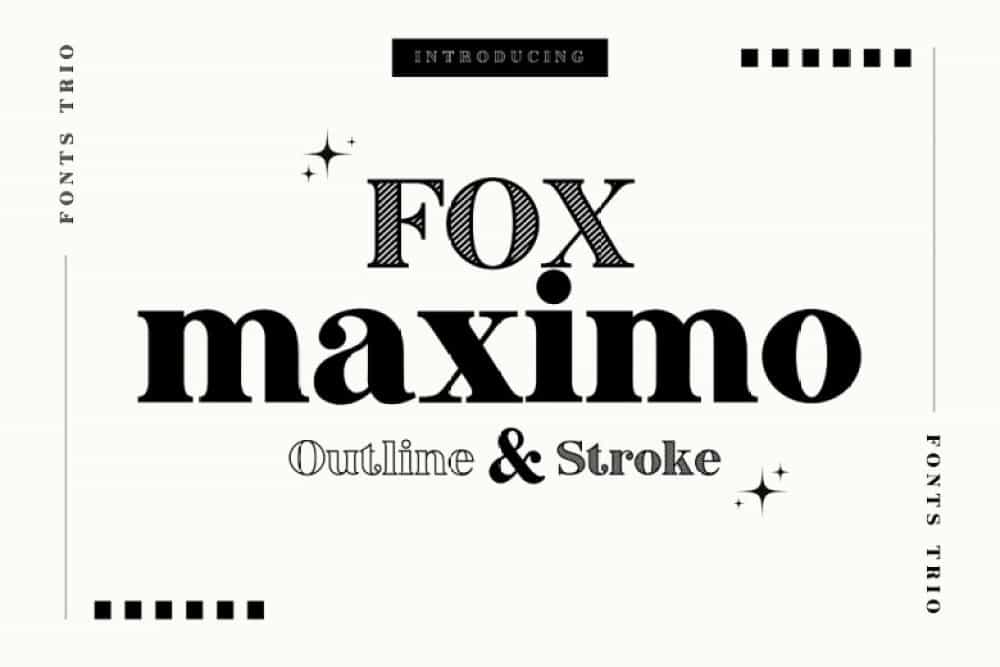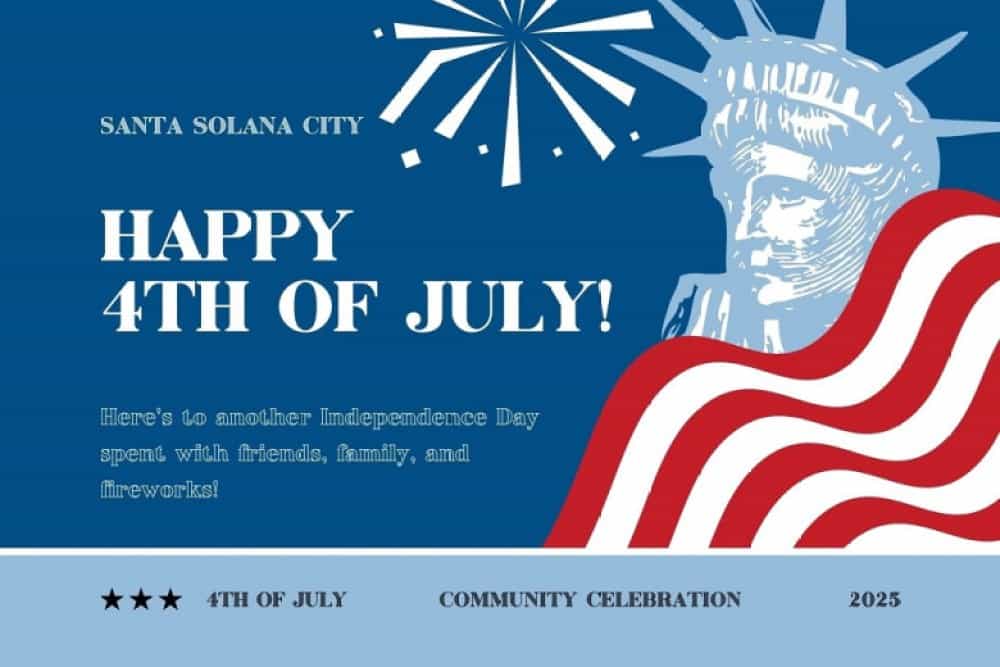
Fox Maximo can be classified into a serif font with three elegant and modern styles. Generally, it can blend well with the current trend as well as the older trends in interior designing. You can apply it to such things as the blog, logos, branding, ads, invitations, greeting cards, planners, photo albums, decorations, and many other things.